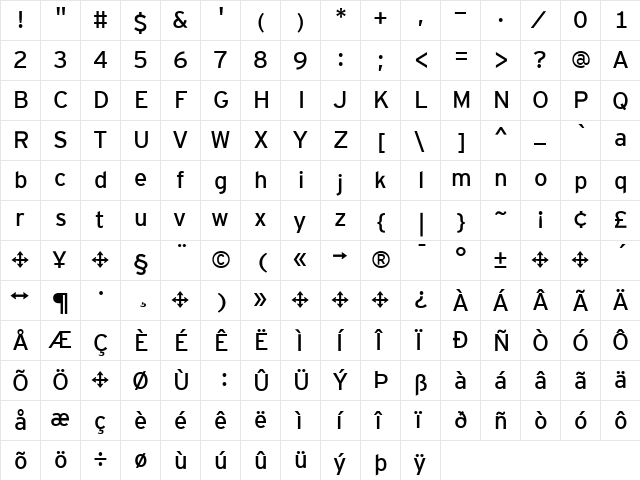
Interstate Mono Regular
Design Context for Interstate Mono Typeface
Interstate Mono brings the precise, column-aligned rhythm of monospaced typography to designs that value technical clarity and systematic order.
Well-suited to data-driven dashboards, coding tutorials, and any design that wants to reference the world of programming.
Pro Tip: Use Interstate Mono with slightly increased line-height for extended reading — fixed-width spacing can feel dense in longer passages without extra breathing room.